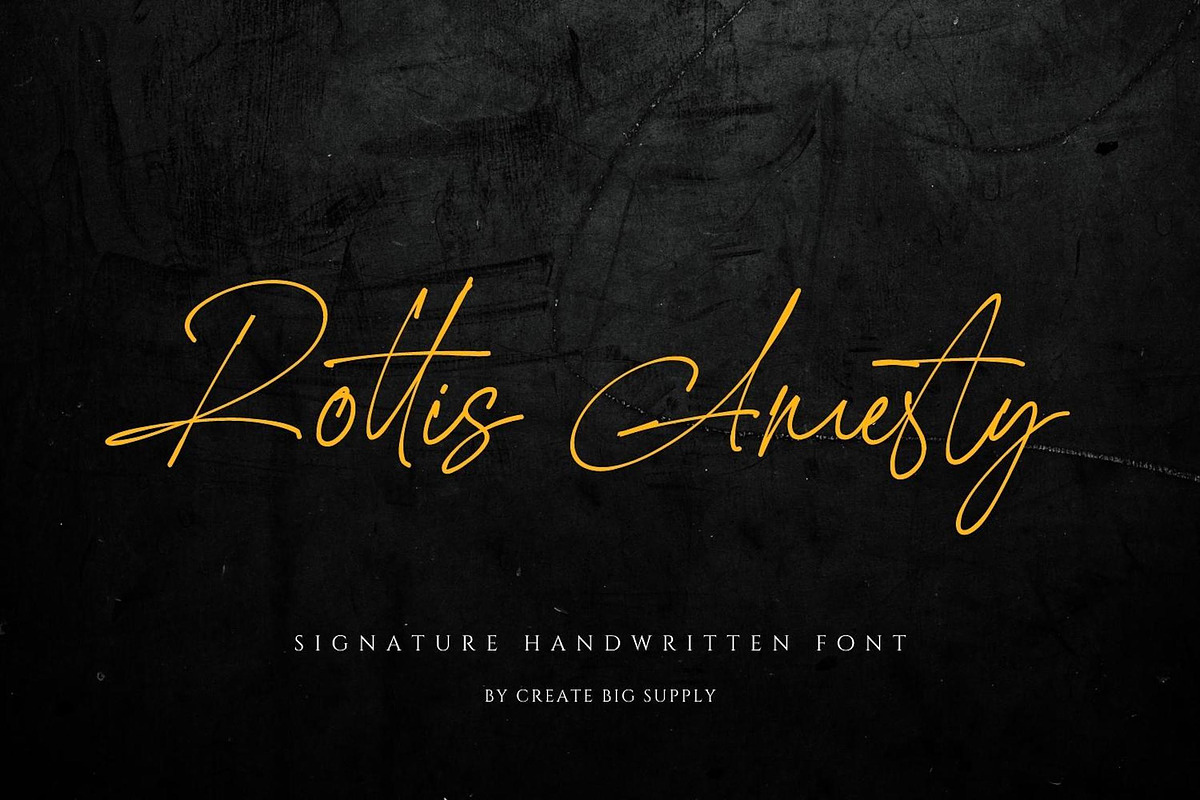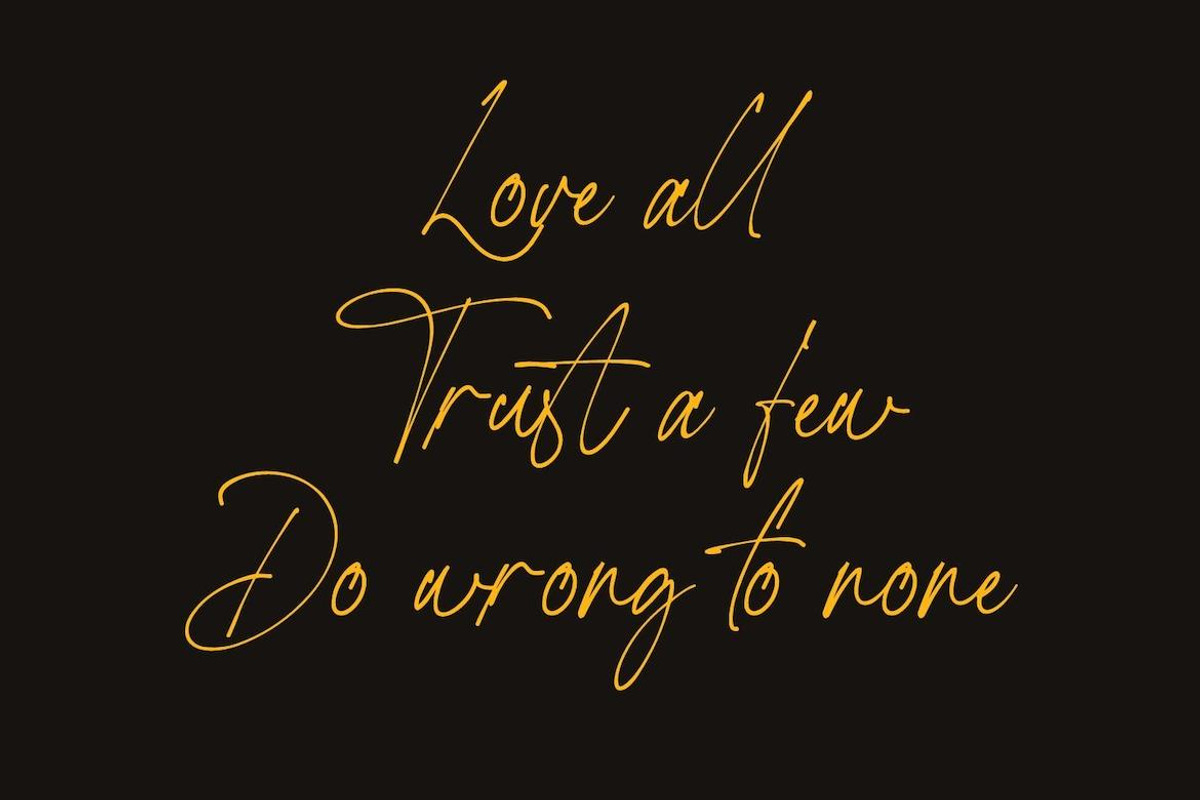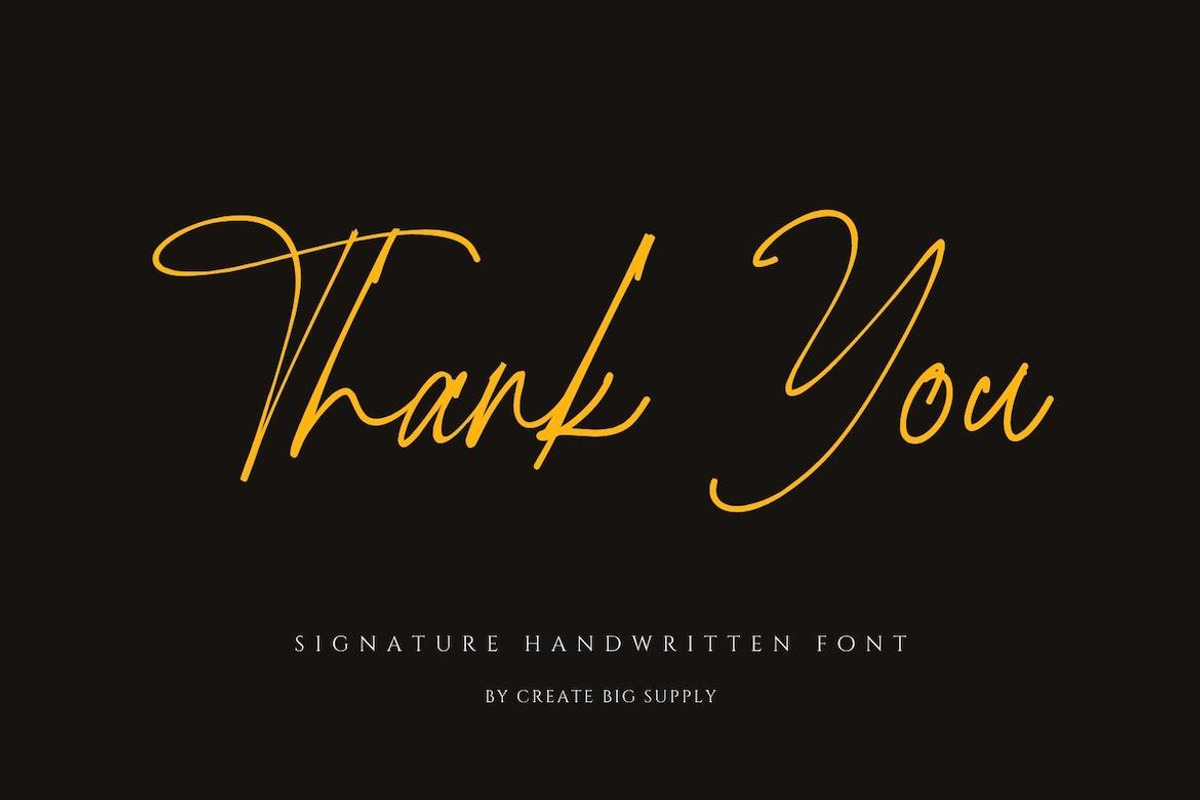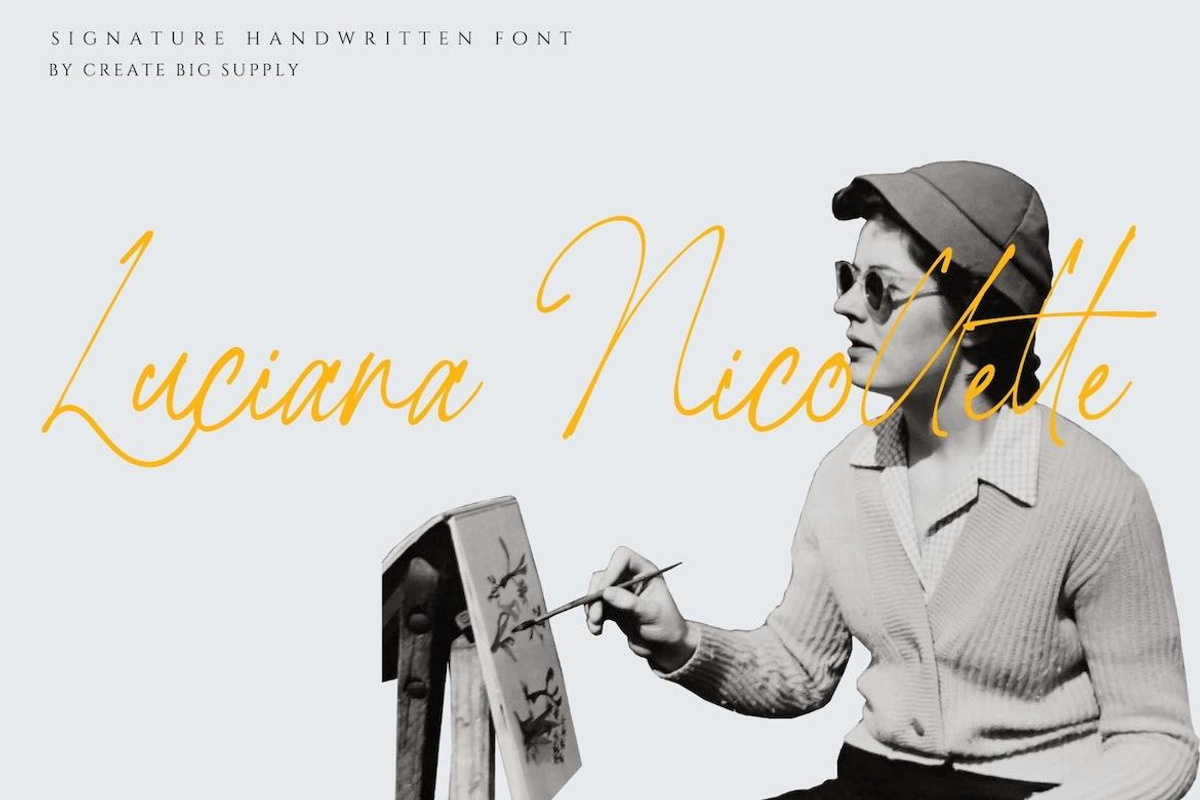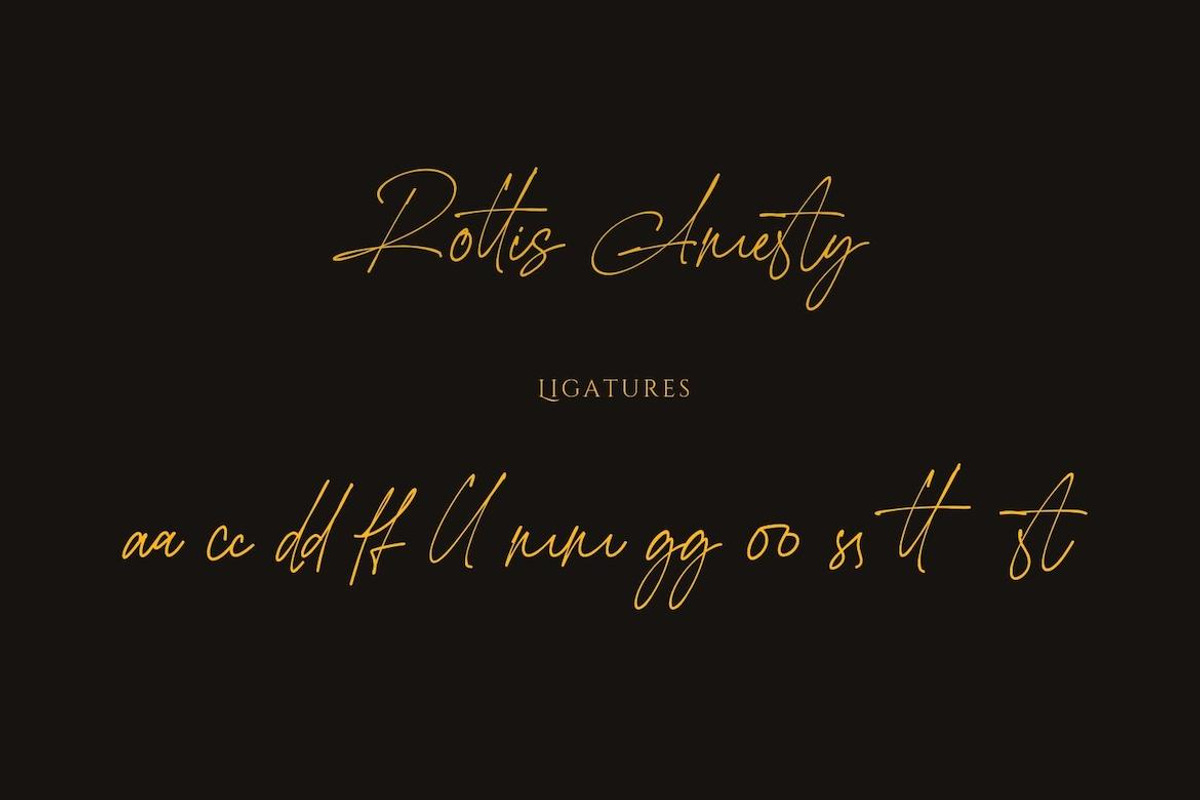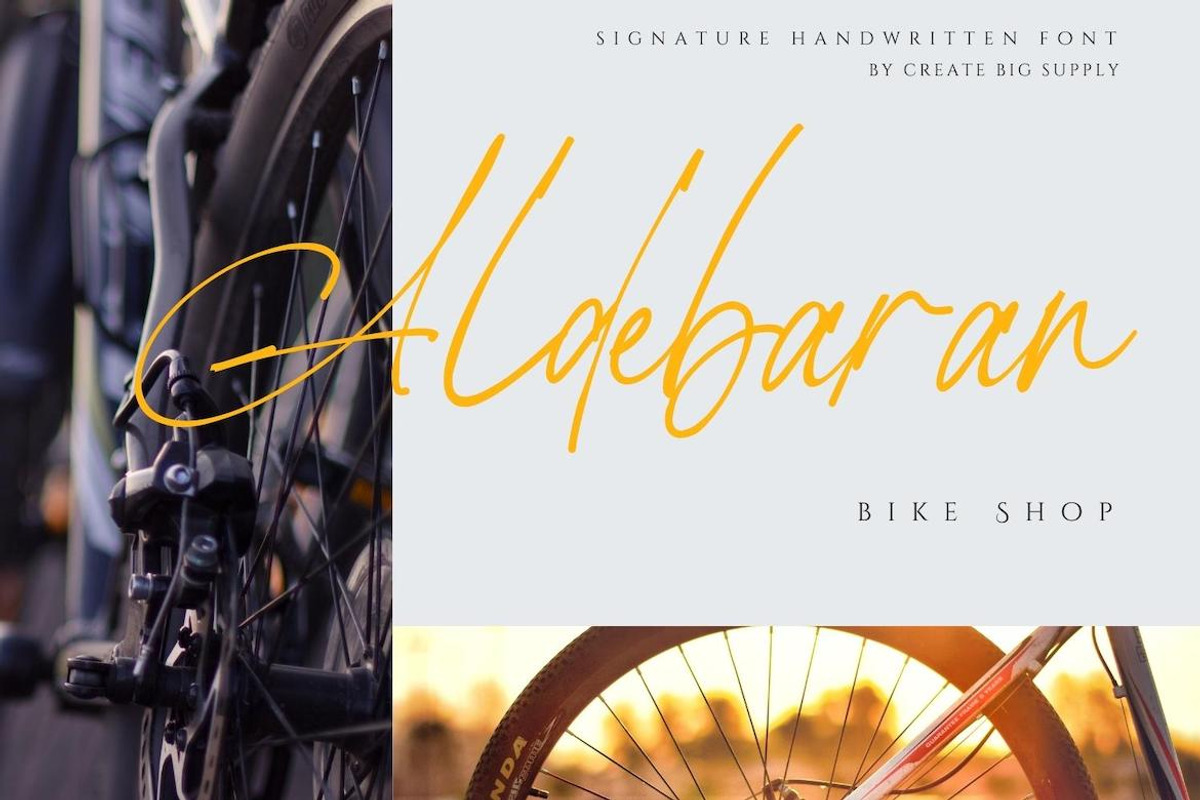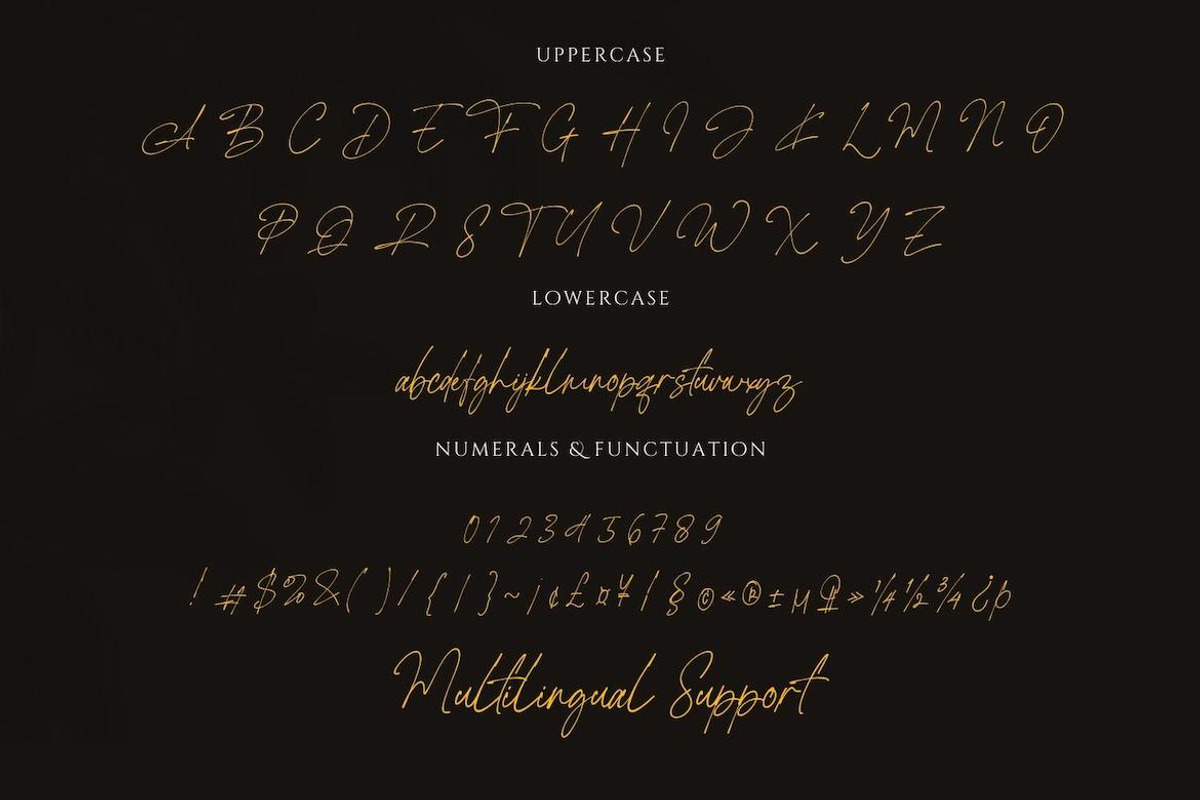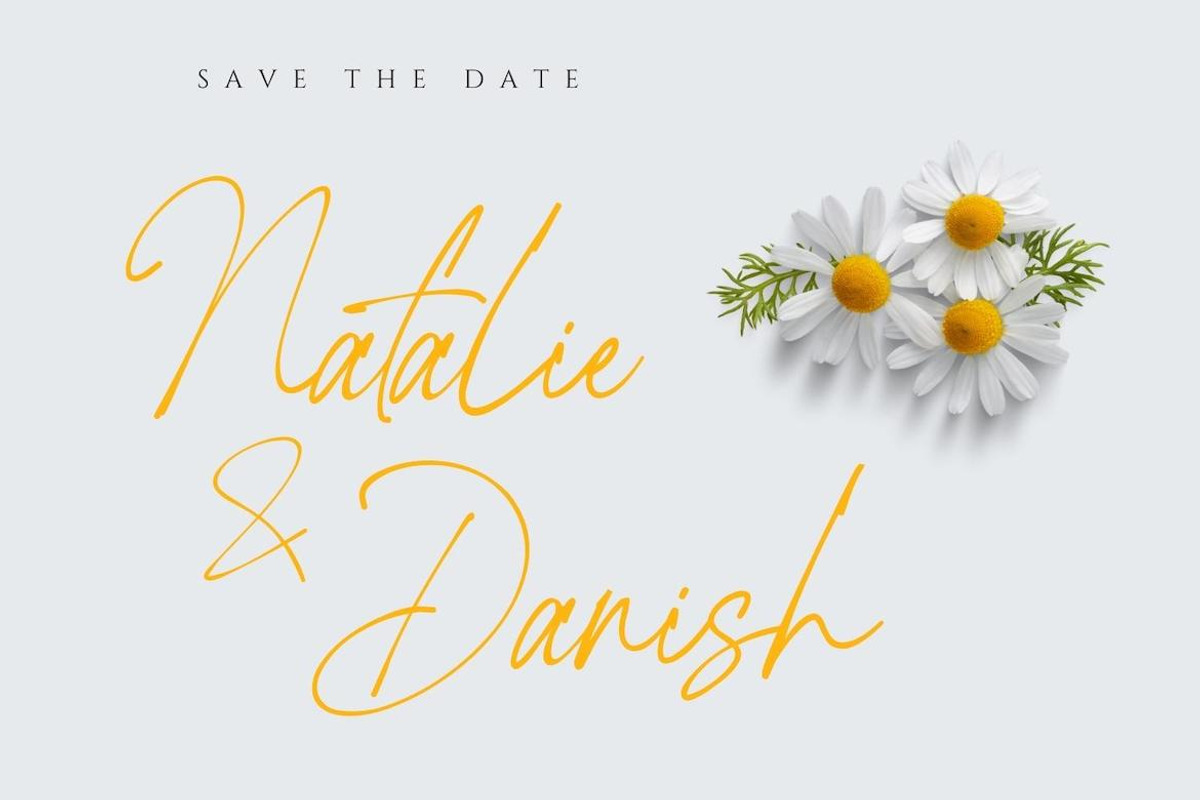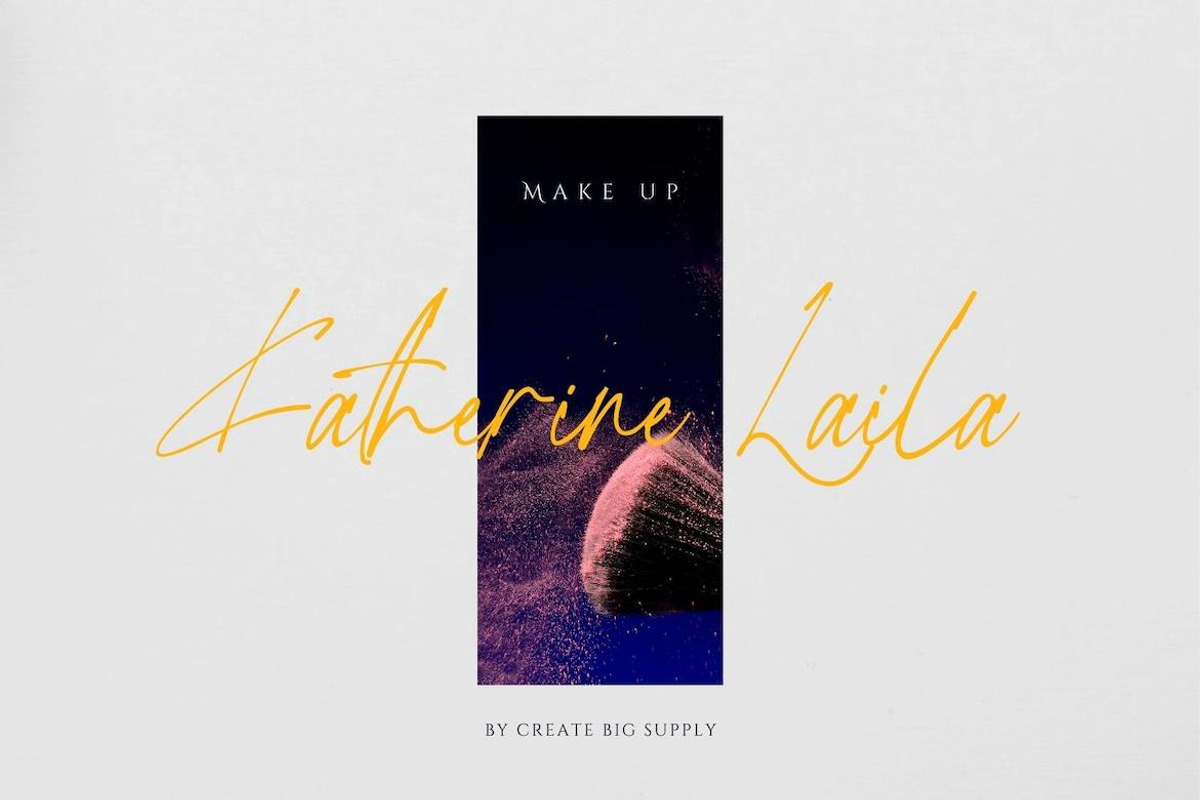
Rottis Amesty Signature Handwriting
Discover Rottis Amesty, a remarkable signature handwriting script font that captures the essence of actual handwriting with its authentic ballpoint effects. This font brings a touch of realism and uniqueness to your projects, allowing you to create personalized designs that stand out. With both uppercase and lowercase letters, numbers, and punctuations, Rottis Amesty offers versatility and flexibility for your creative endeavors. The font supports multiple languages, ensuring your message reaches a global audience. It also features ligatures and is PUA encoded for easy access to special characters. Download Rottis Amesty Signature Handwriting Script Font now and infuse your projects with the charm and individuality of a handwritten signature.